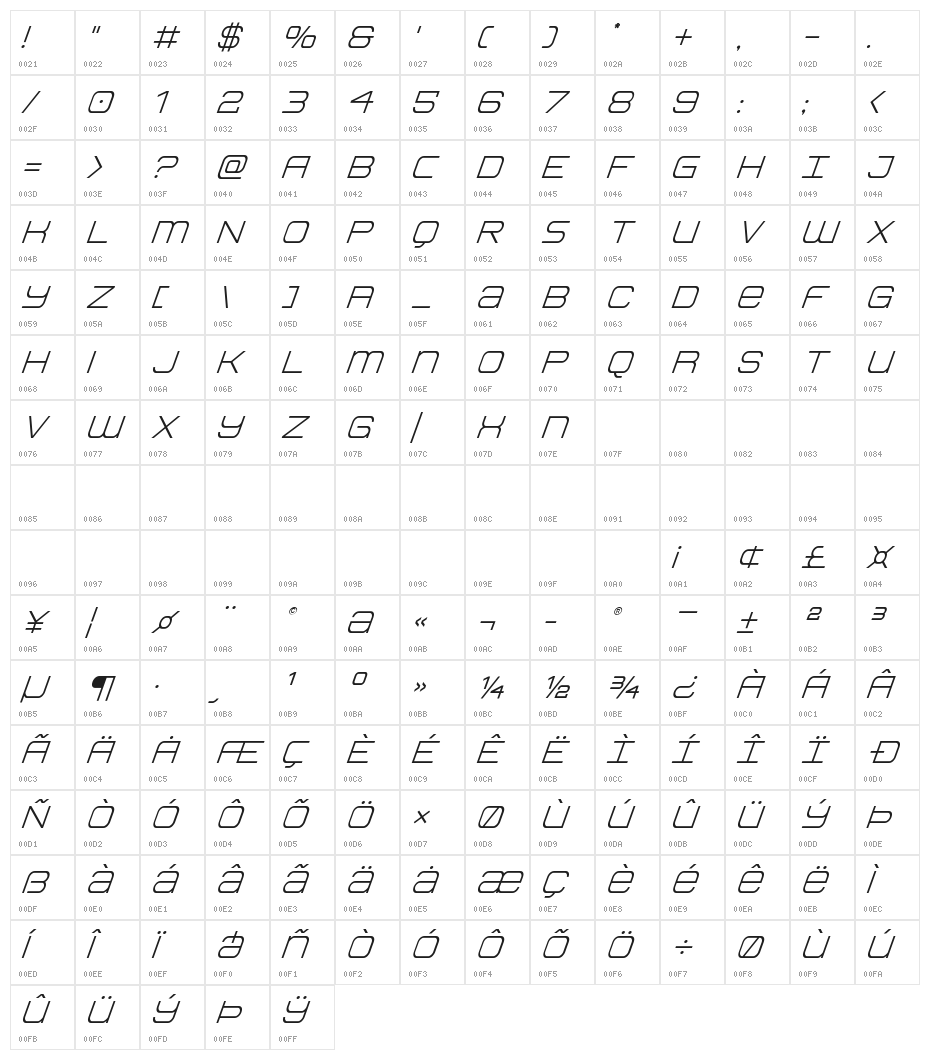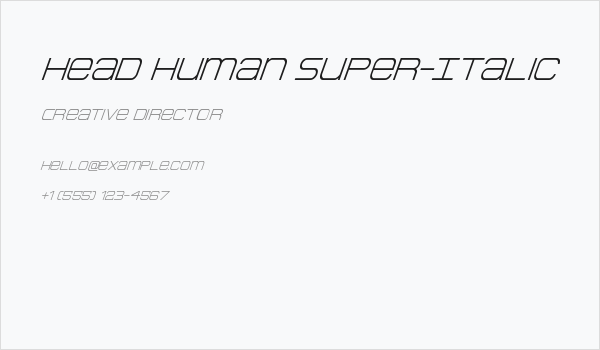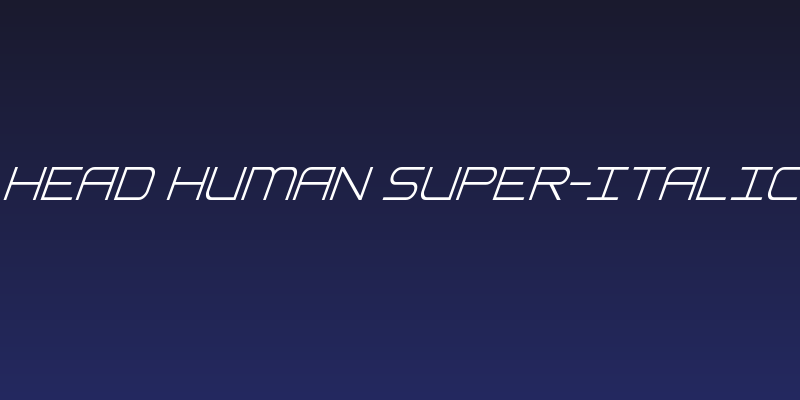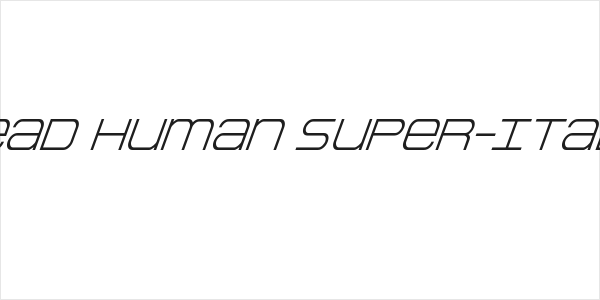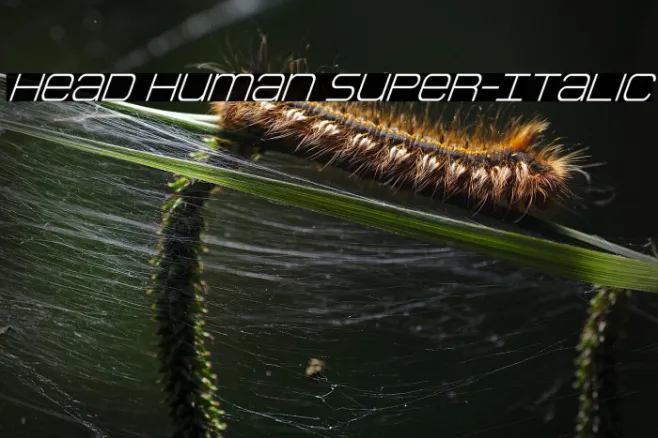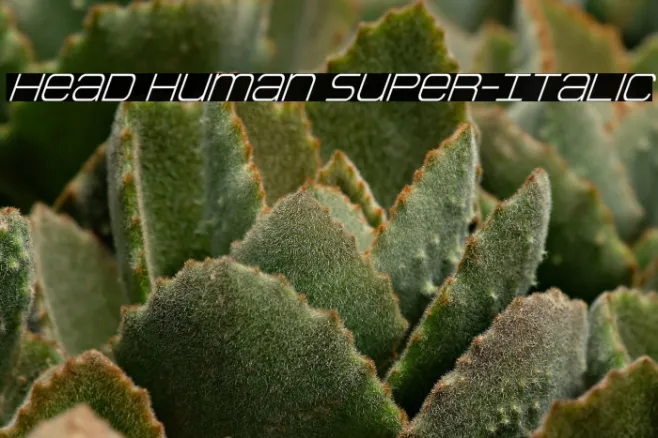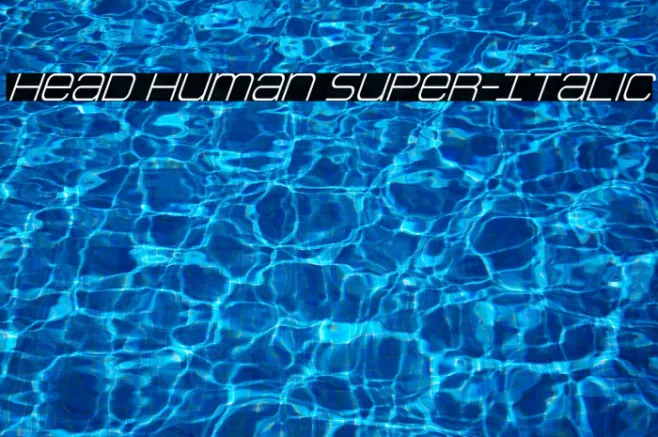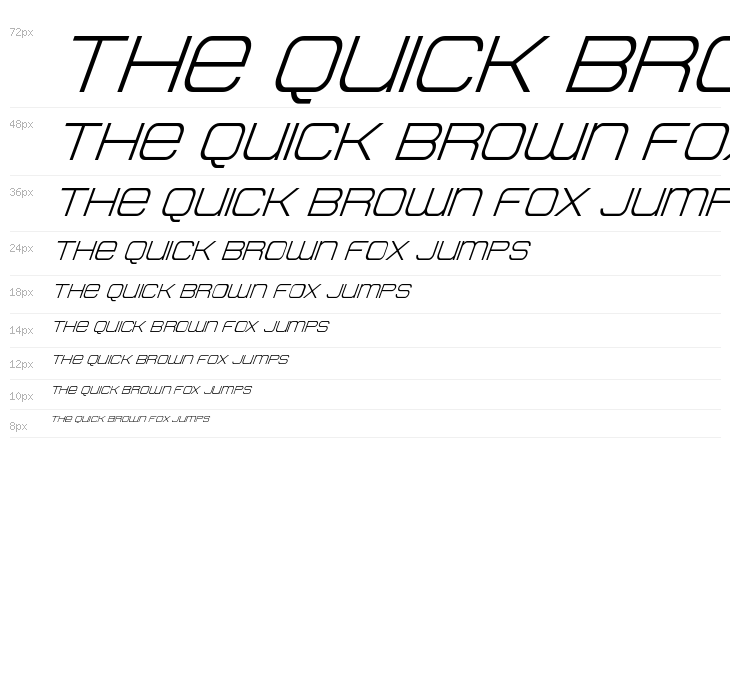
Head Human Super-Italic Font
Head Human Super-Italic Description
This font features a sleek, modern design with a distinct italic slant, giving it a dynamic and forward-moving appearance. The characters are elongated and slightly condensed, contributing to a streamlined look. The strokes are consistent in weight, providing a uniform and cohesive feel across all characters. The font includes a full set of uppercase and lowercase letters, numerals, and a variety of special characters, making it versatile for various applications. Its futuristic style is accentuated by the angular cuts and smooth curves, making it suitable for tech-oriented or contemporary projects.
| Use Case | Headlines, Logos, Digital interfaces |
| Proposed Projects | Ideal for tech branding, futuristic designs, digital interfaces, and modern advertising. |